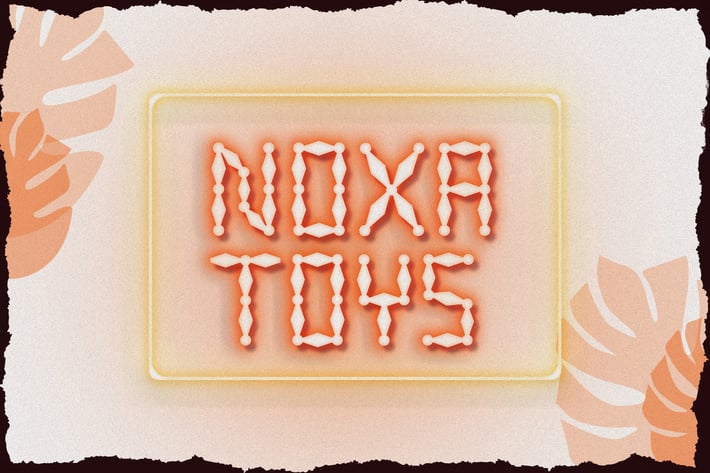
Simplemax Craft Font
Simplemax - Handmade Craft Font
Simplemax is perfect for your up coming projects. Such as logo branding, editorial design, stationery design, blog design, modern advertising design, card invitation, art quote, home decor, book/cover title, special events ( birthday, etc ), and any more.